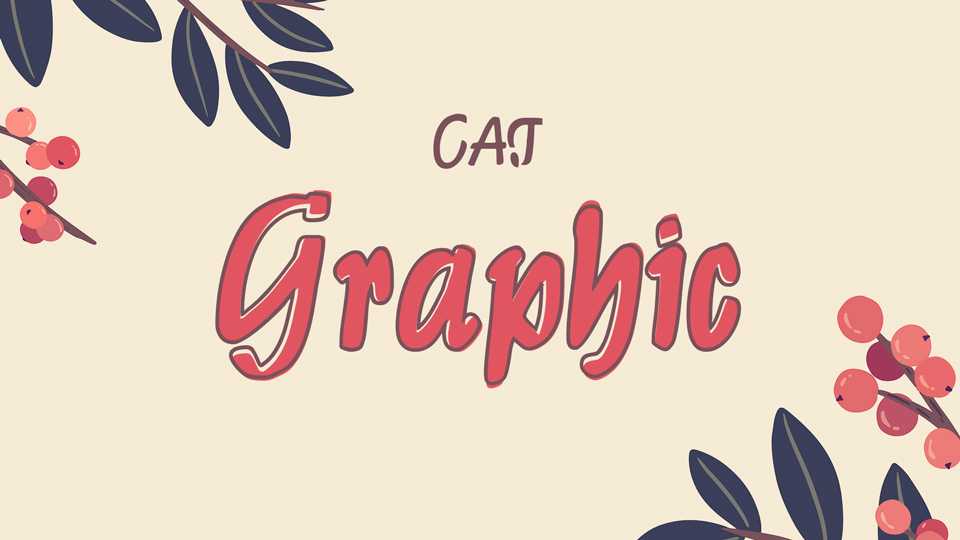
Download Graphic CAT font, a handwritten brush typeface without connections and overhangs inspired by hand pained signages in a supermarket. Graphic CAT is a very lively and effective typeface in two styles – Solid and Outlined.